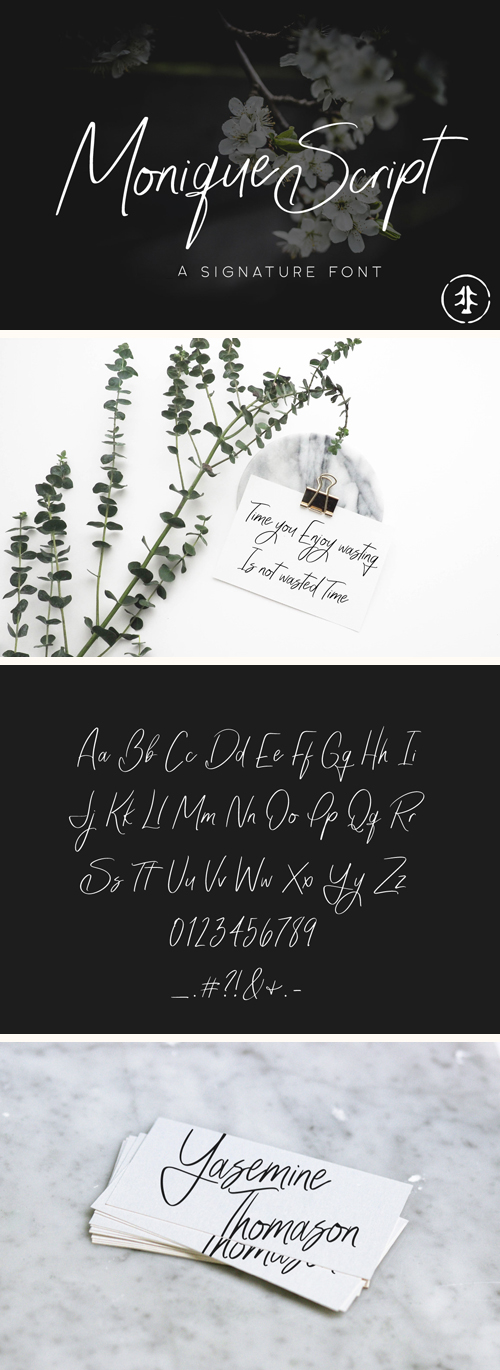
Monique Script Font
Monique Script is a elegant handwritten signature font with naturally flowing baseline. It contains full set of glyphs including uppercase and lowercase letters, numerals and symbols. This font is perfect for signature style logos, quotes, branding, invitations and cards, social media covers and much more.